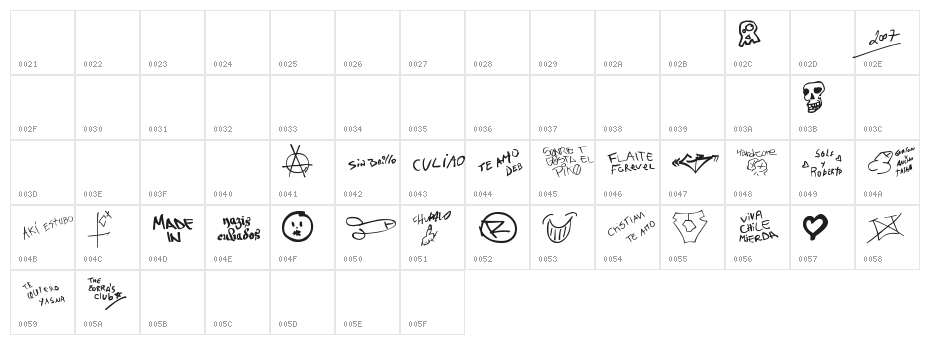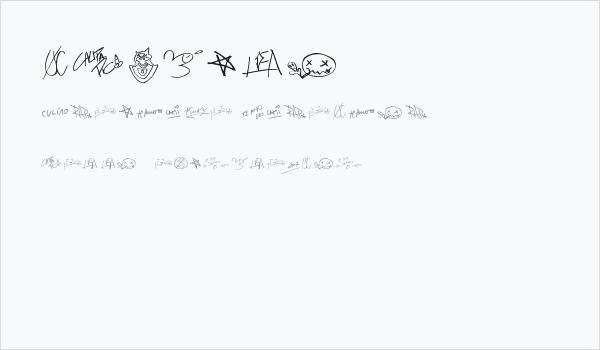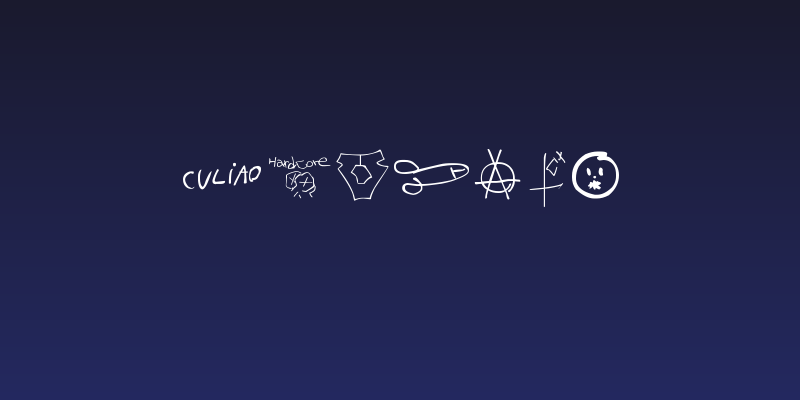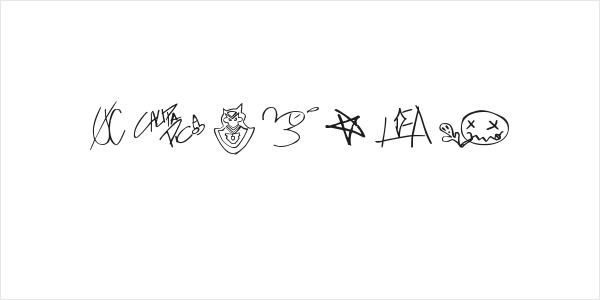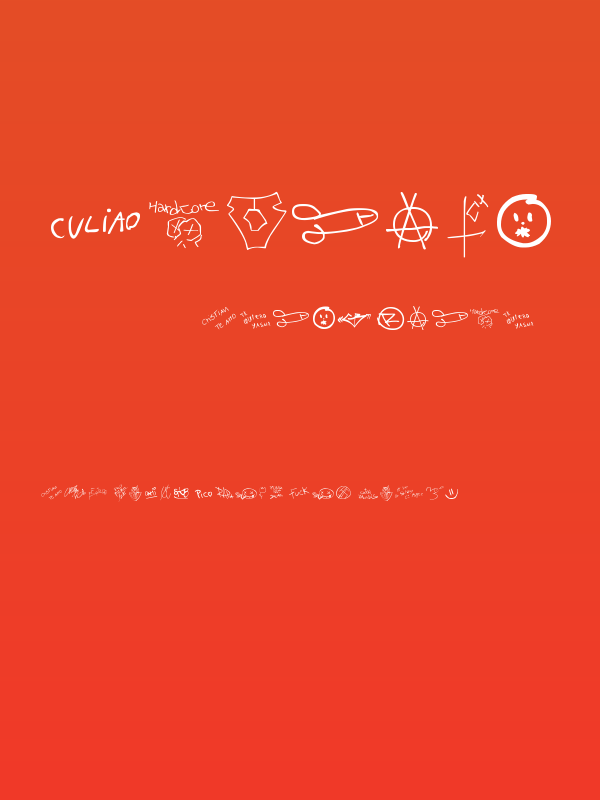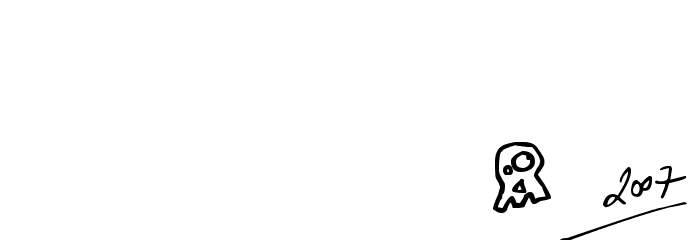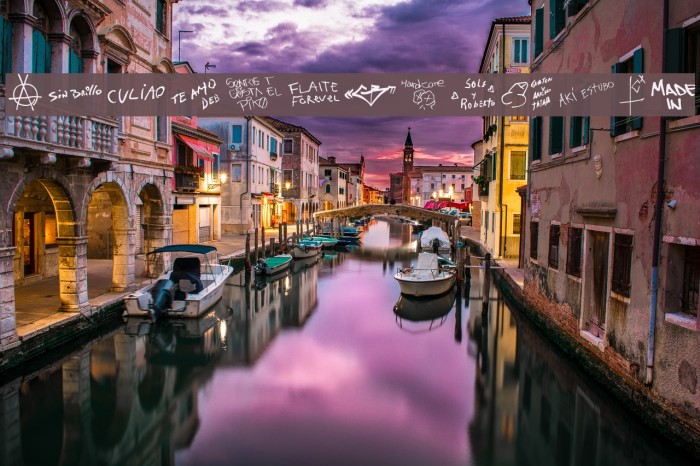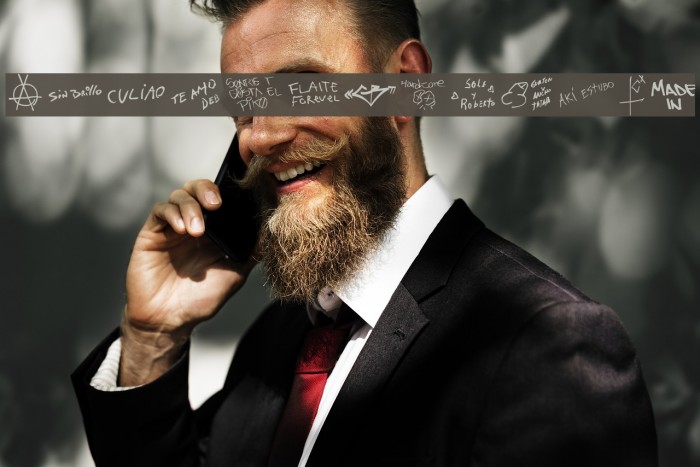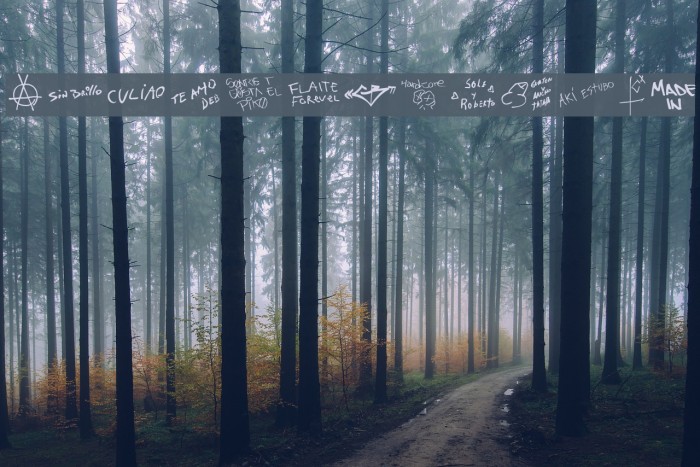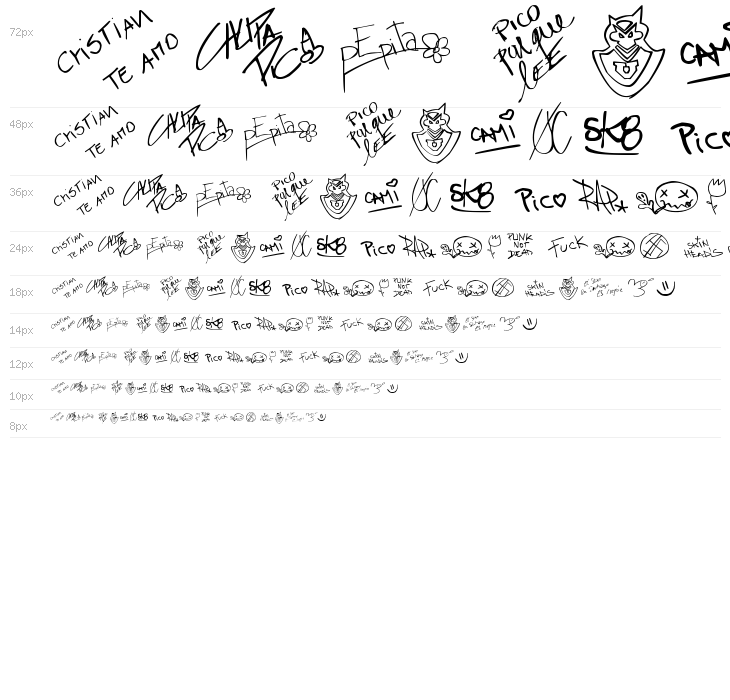
chupalo Font
chupalo Description
A highly irregular, graffiti-inspired handwritten style with varying stroke thickness, spontaneous letterforms, and a mix of uppercase and lowercase characters. The glyphs are expressive, informal, and often accompanied by illustrative doodles or symbols, giving a rebellious and urban feel.
| Overall Style | Decorative, Urban, Graffiti |
| Use Case | Logos, Posters, Artistic projects, Informal notes |
| Proposed Projects | Street art posters, album covers, youth-oriented branding, protest materials, urban fashion graphics. |